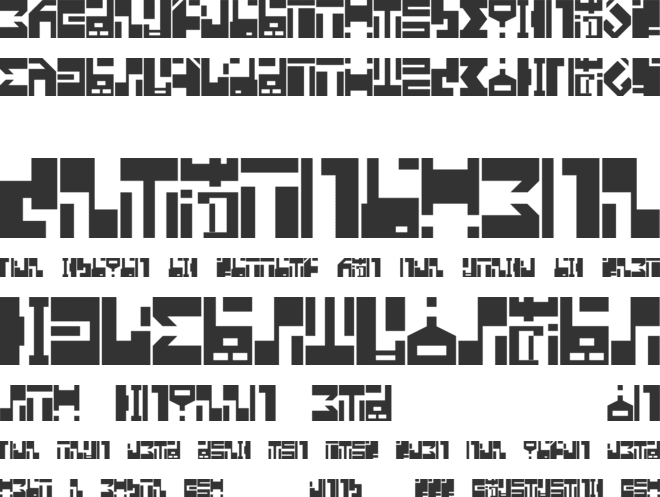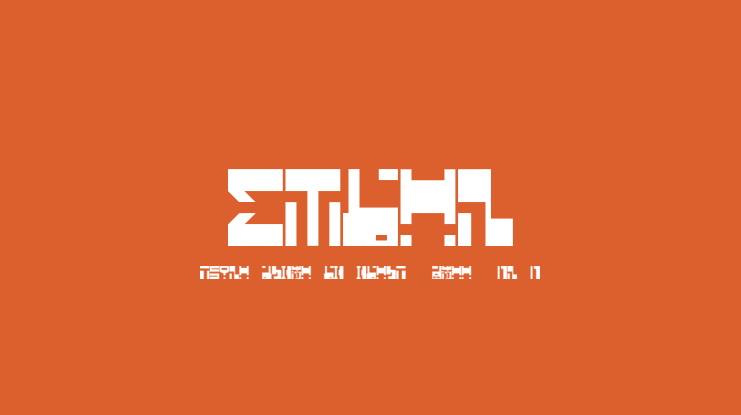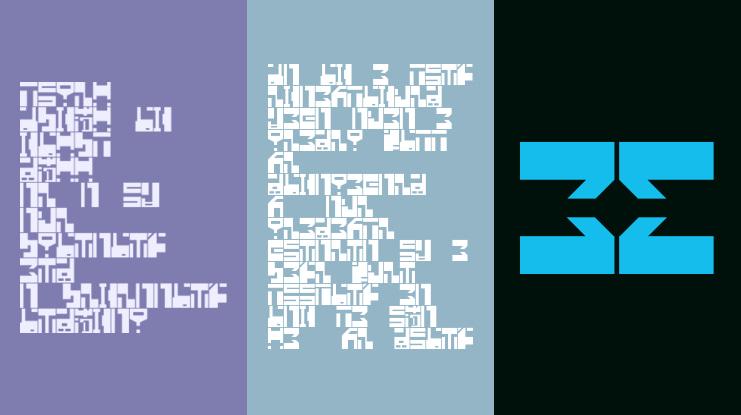
Anime Font
here's my first ANIME font based on "Fairy Tail".
A few weeks ago one of the users from the RPF (ReplicaPropForum) asked me if I could clean some signs and symbols from this anime. So the easiest way was creating a font of them.